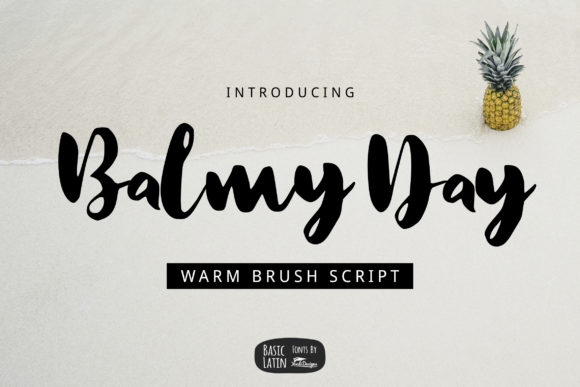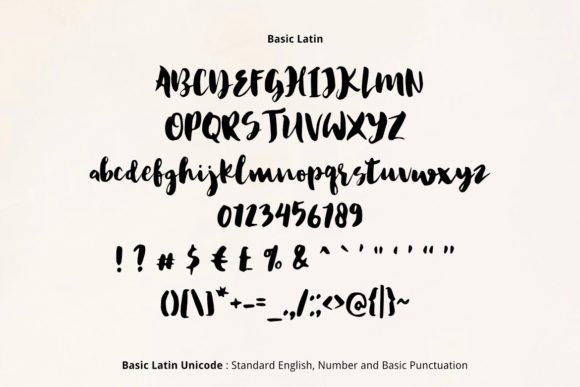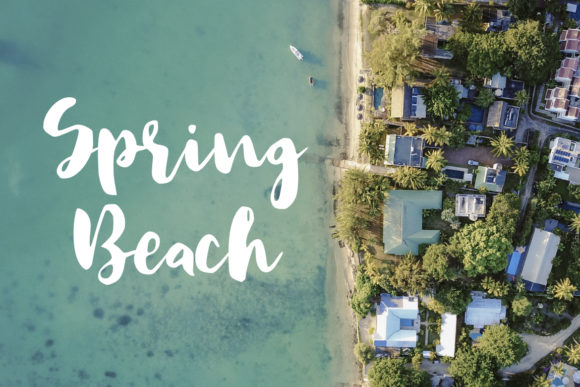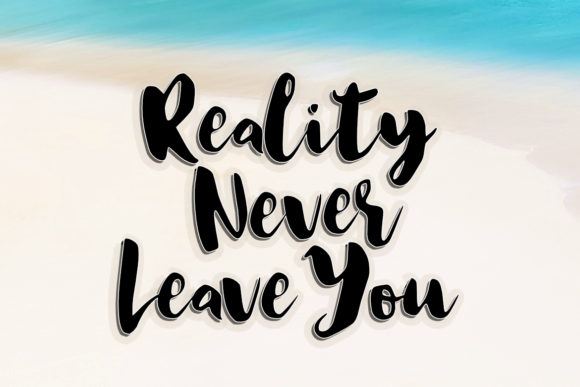
HomeScript FontsBalmy Day Font Script Fonts Balmy Day Font FacebookXPinterestWhatsApp Balmy Day Font Poster 2 Balmy Day Font Poster 3 Balmy Day Font Poster 4 About Balmy Day Font Balmy Day is a unique and playful script with a cute twist. Get inspired by its authentic charm! DOWNLOAD ON CREATIVE FABRICAThis font is sold and delivered by Creative Fabrica. Font Canyon may earn a commission if you buy through this link. People also explored Play Turtle Font Awesome Snowflakes Font Breath Font Hobaka Font Mazela Font El Salvador Font Bresciano Font Glamhoure Font Quote Font 348 0 TagsBalmy Day Font Previous articleResign FontNext articleTiny Rabbit Font LEAVE A REPLY Cancel reply Comment: Please enter your comment! Name:* Please enter your name here Email:* You have entered an incorrect email address! Please enter your email address here Website: Save my name, email, and website in this browser for the next time I comment. Personal Use Free Quentin Personal Use Free Read more about this font The 10 Best Handwriting Fonts to Add Personality to Your Designs Blog Read more about this font Alnair Star Personal Use Free Read more about this font Gonestones Personal Use Free Read more about this font BLOG Free vs Paid Fonts: Why Investing in Premium Fonts Is Worth It Free vs Paid Fonts: Why Premium Fonts Are Worth It in 2025 The debate of free vs paid fonts continues in the design world. While... Best Fonts for YouTube Videos: Make Your Thumbnails Stand Out Transform Your Website: Elevate Your Typography with 7 Best Web Font Generators Best Fonts for T-Shirt Design – Top 2025 Picks